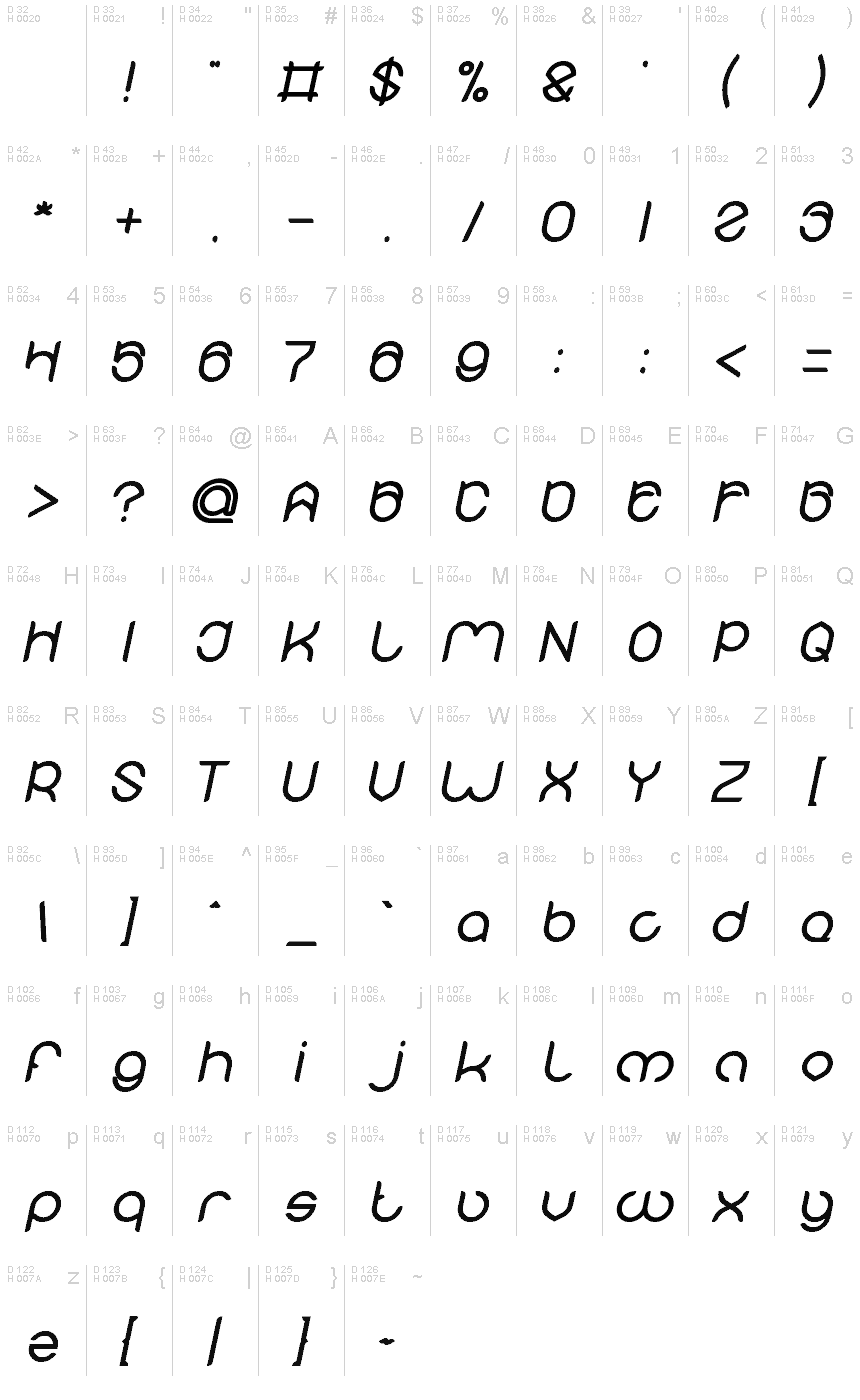
MICHELLE Bold Italic
Micholla is a striking display font that exudes a captivating blend of modern elegance and vintage charm. Designed by Weknow, this bold italic typeface captivates with its flowing, script-inspired curves and dynamic, yet refined aesthetic. Micholla's distinctive letterforms seamlessly combine crisp edges with organic fluidity, creating a visually arresting and versatile design that lends itself beautifully to a wide range of applications, from high-end branding and editorial layouts to eye-catching event invitations and product packaging.
This font's bold presence and striking personality make it an exceptional choice for designers seeking to make a strong, memorable impression. Micholla's versatility allows it to elevate both contemporary and timeless design projects, effortlessly incorporating a touch of sophisticated flair and artistic flair.